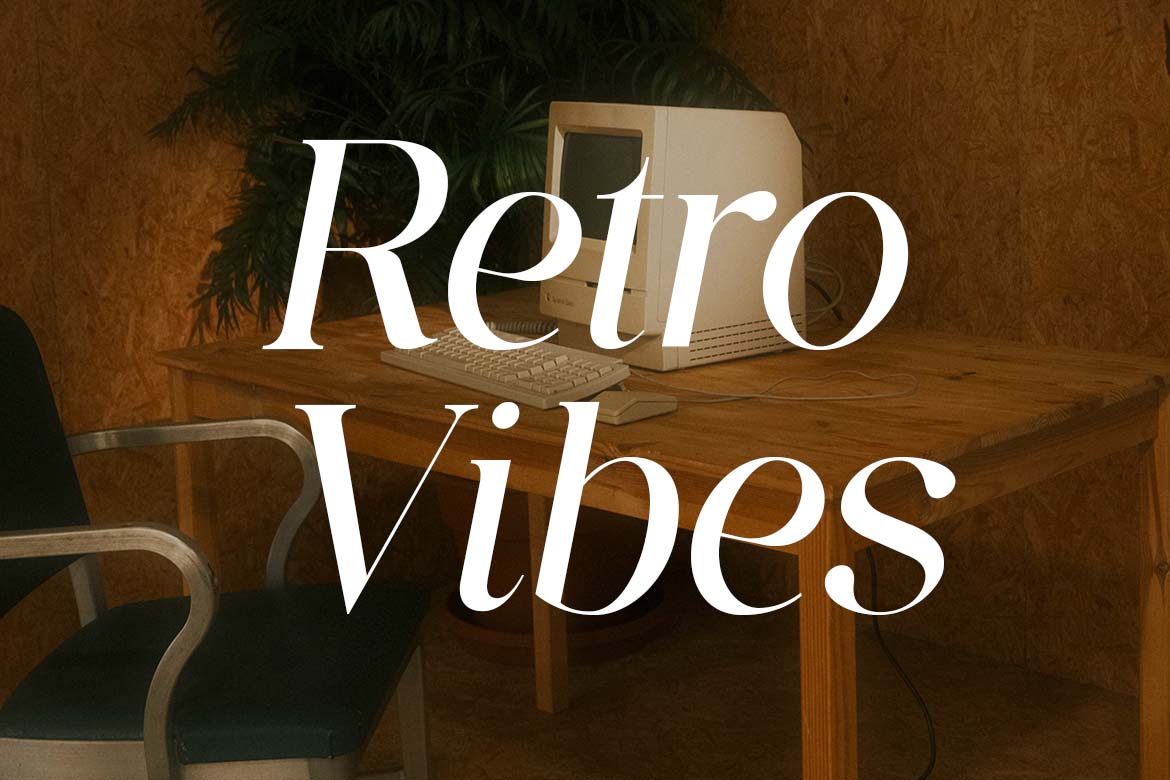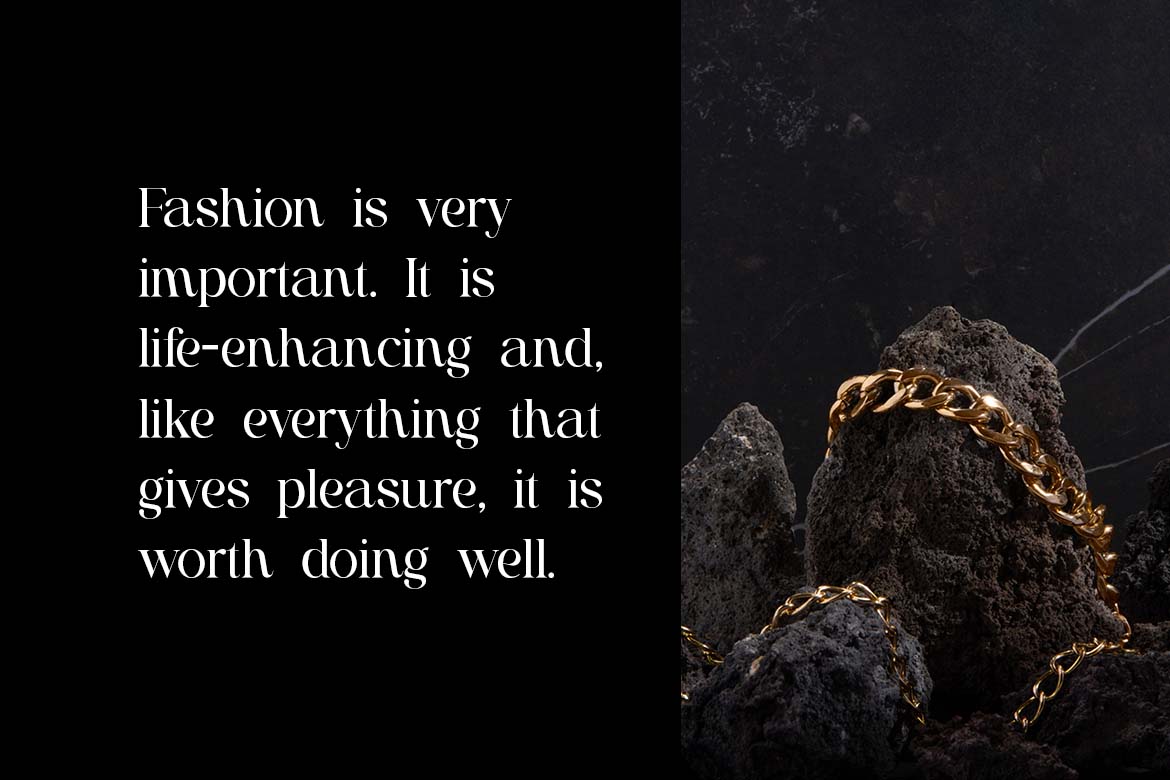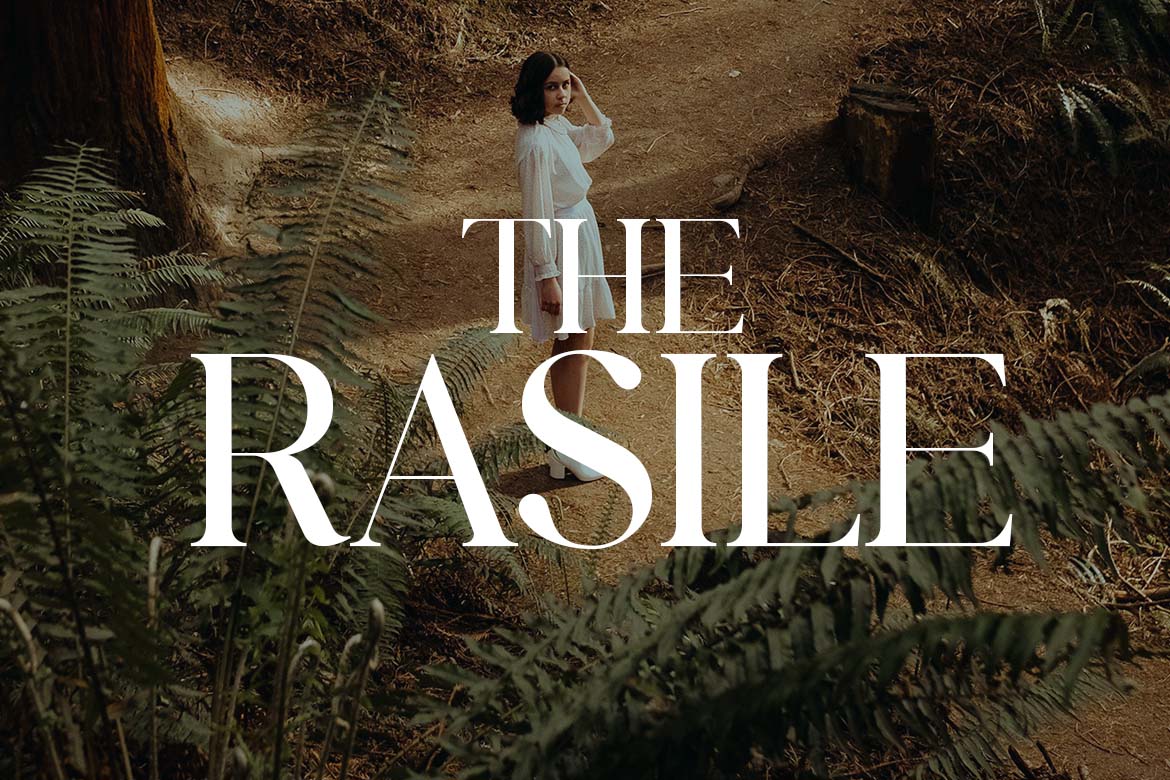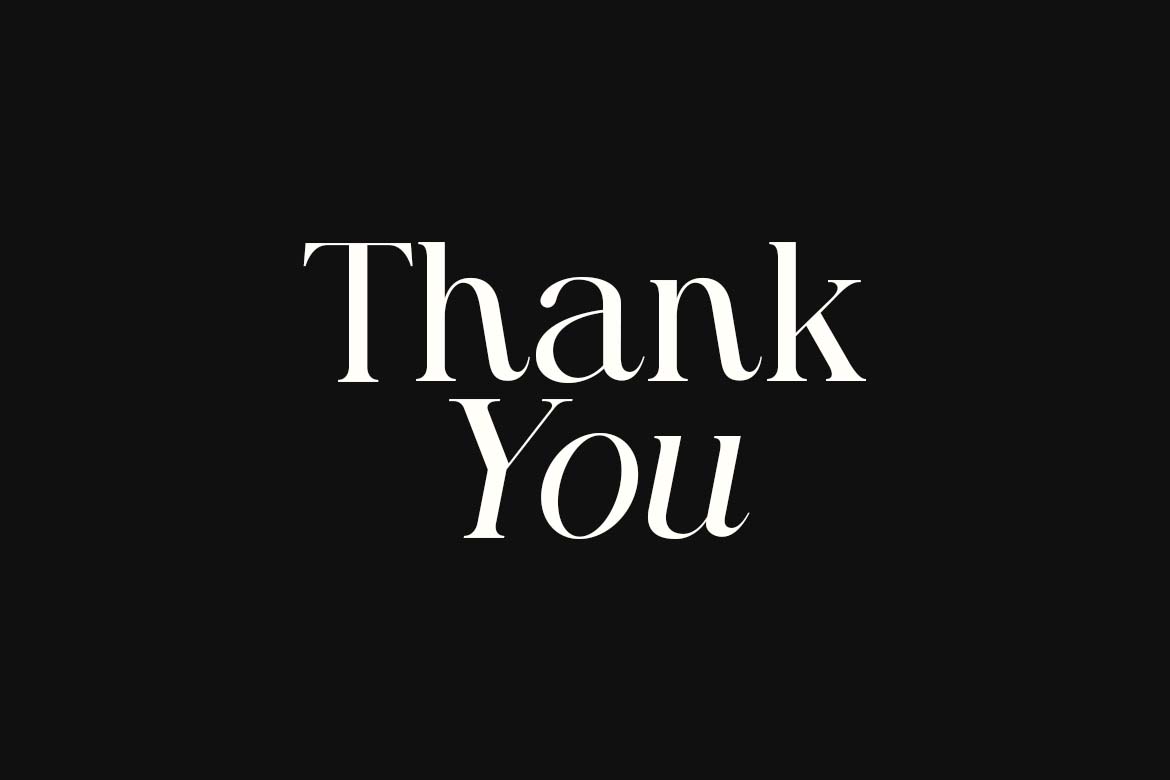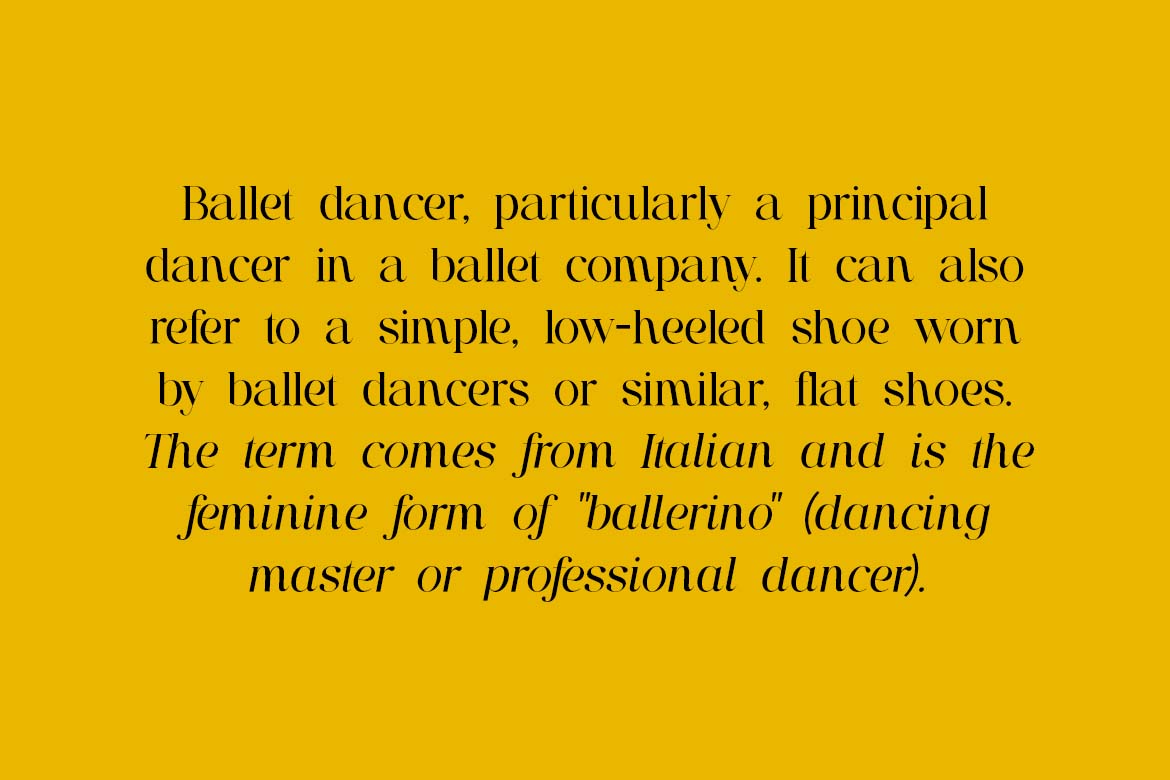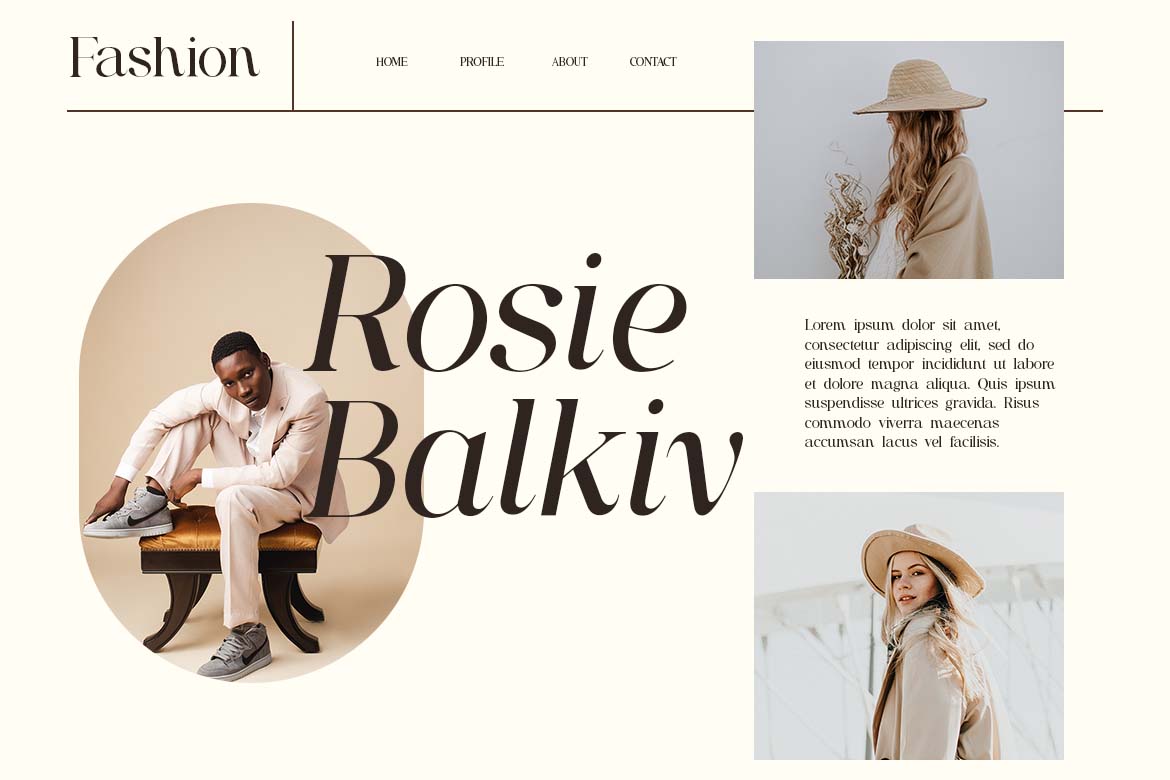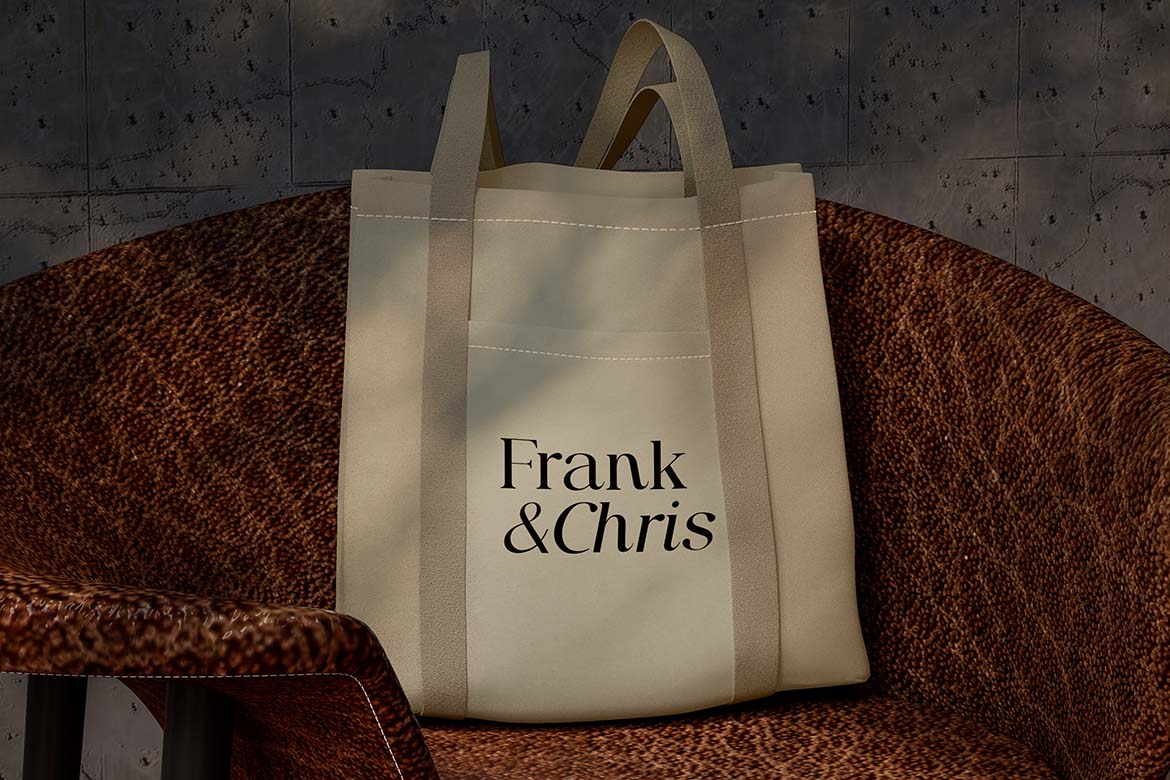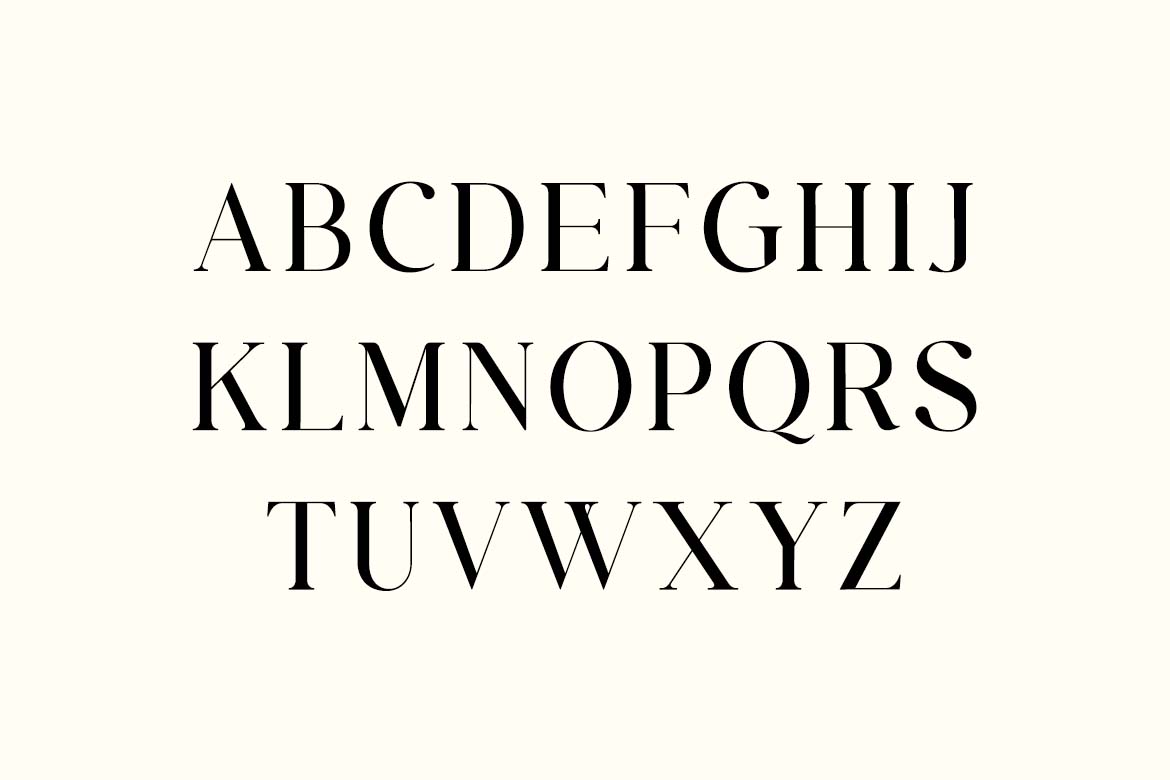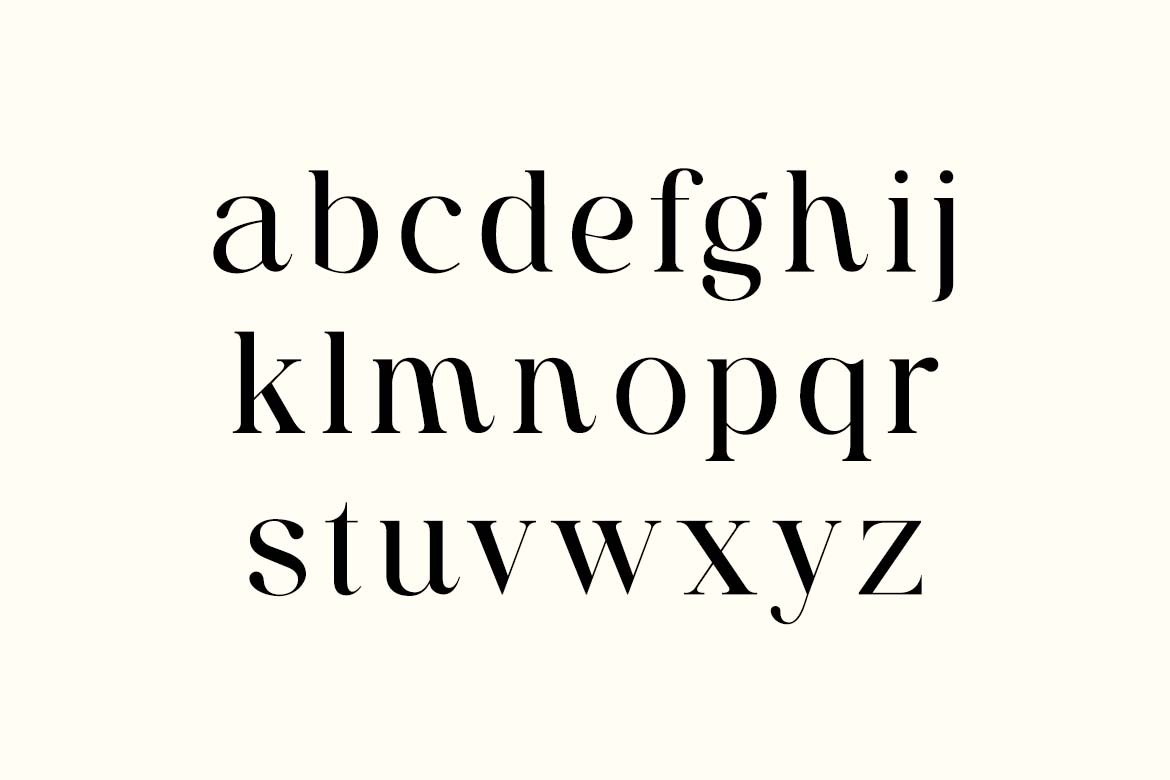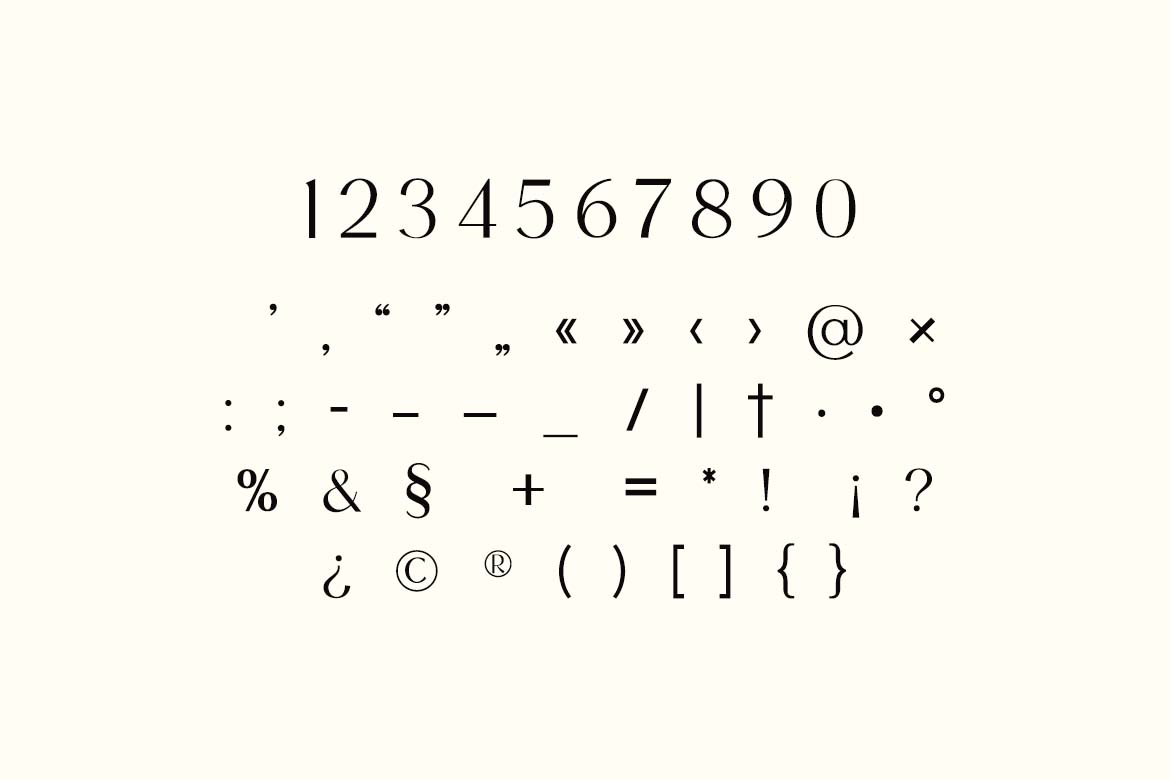
Brighton Newport Elegant Serif Font
Brighton Newport Elegant Serif Font. The modern display font feels beautiful classy, elegant, and stylish. This font is ideally suited for a wide variety of projects, such as signature, stationery, logo, wedding, typography quotes, magazine or book covers, website headers, branding, and more. Also, fashion-related branding or editorial design displays both masculine and feminine qualities.